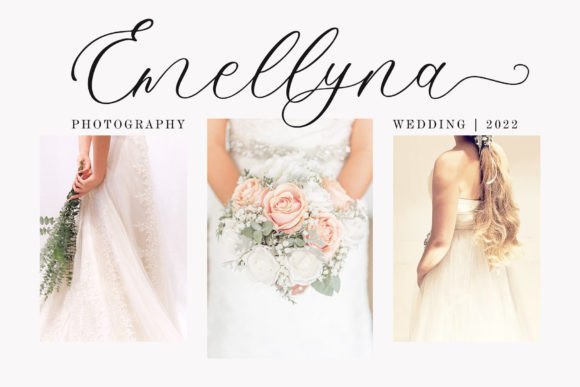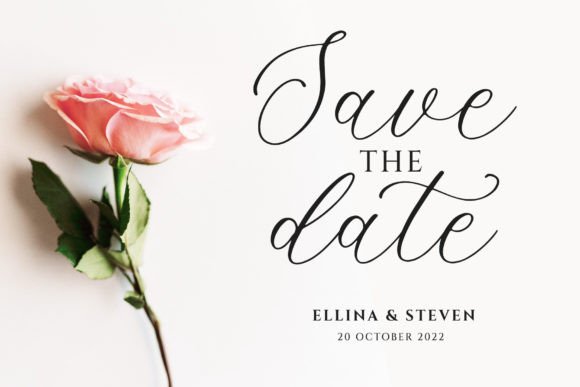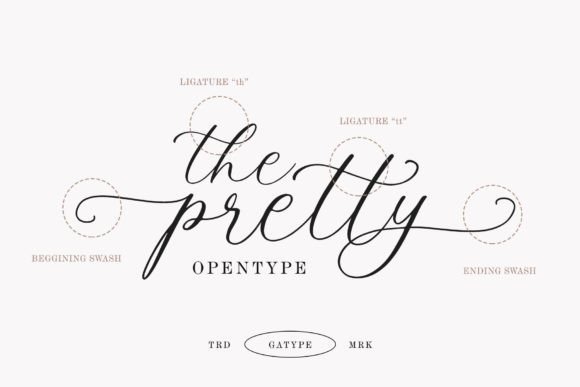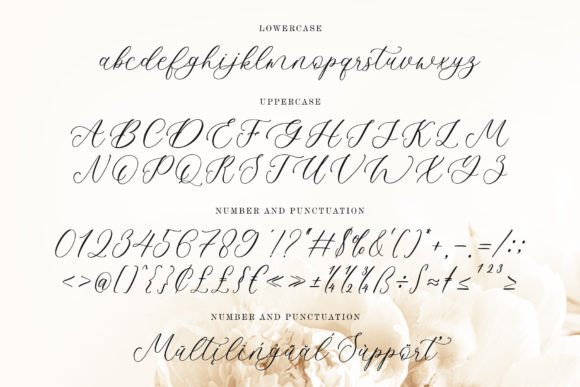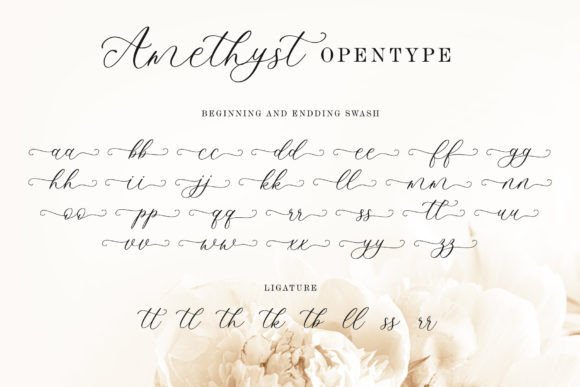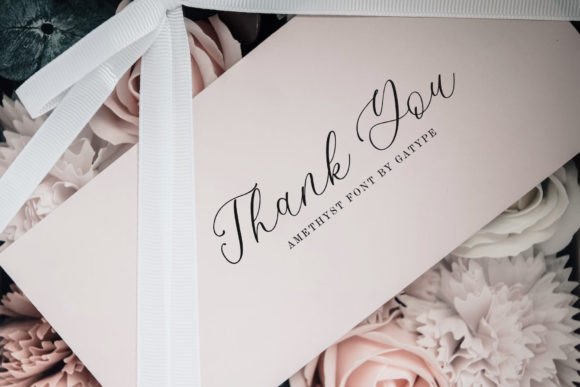
Introducing Amethyst Font: Elevate Your Designs with Modern Calligraphy
Are you a designer or crafter looking for a unique and elegant font to elevate your creative projects? Look no further than Amethyst Font, a modern calligraphy font that is both casual and pretty with a stroke. This versatile font is perfect for a wide range of applications, from logos and product packaging to wedding invitations, branding, headlines, signage, labels, signatures, book covers, posters, quotes, and more.
What Makes Amethyst Font Special?
Amethyst Font is a standout in the world of typography due to its beautiful, flowing script and modern calligraphy style. Its casual yet elegant appearance makes it perfect for designers and crafters who want to add a touch of sophistication to their work. The font’s stroke adds a level of whimsy and playfulness, making it ideal for projects that require a bit of personality.
Key Features of Amethyst Font
• Modern Calligraphy Style: Amethyst Font boasts a modern calligraphy style that is both fresh and timeless.
• Casual and Pretty with a Stroke: The font’s casual and pretty appearance is enhanced by a beautiful stroke that adds character and elegance.
• PUA Encoded: Amethyst Font is PUA encoded, which means you can access all of the glyphs and swashes with ease. This feature makes it simple to customize your text and add unique touches to your designs.
• Versatile: This font is suitable for a wide range of projects, from logos and branding to wedding invitations and posters.
Use Amethyst Font for Your Creative Projects
Amethyst Font is perfect for designers and crafters who want to create stunning visual content. Here are some ideas for using this beautiful font:
• Logos and Branding: Use Amethyst Font to create a unique and memorable logo for your business or brand.
• Wedding Invitations: Add a touch of elegance to your wedding invitations with this beautiful calligraphy font.
• Product Packaging: Elevate your product packaging with a custom label or design featuring Amethyst Font.
• Signage and Posters: Use this font to create eye-catching signage and posters that grab attention.
• Book Covers and Quotes: Add a touch of sophistication to your book covers and quotes with Amethyst Font.
Tips for Using Amethyst Font
To get the most out of Amethyst Font, here are a few tips:
• Experiment with Different Sizes and Colors: Play around with different sizes and colors to find the perfect combination for your project.
• Use the Font’s Swashes and Glyphs: Take advantage of the font’s PUA encoding to access a wide range of swashes and glyphs.
• Pair with Other Fonts: Try pairing Amethyst Font with other fonts to create a unique and interesting contrast.
Amethyst Font is a beautiful and versatile modern calligraphy font that is perfect for designers and crafters. Its casual yet elegant appearance, combined with its PUA encoding and wide range of uses, make it an excellent addition to any creative project. Whether you’re looking to create a stunning logo, elegant wedding invitation, or eye-catching signage, Amethyst Font is the perfect choice.